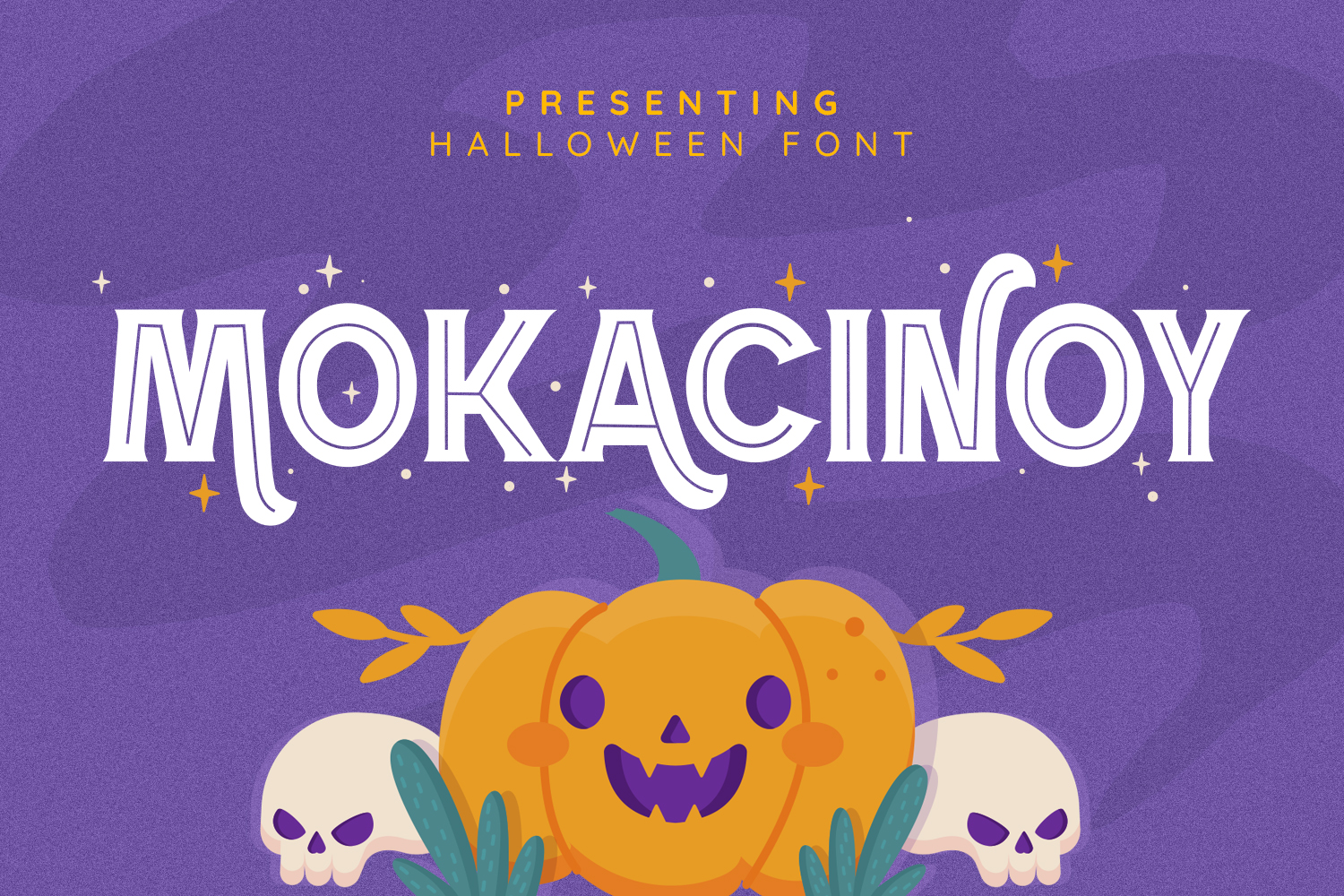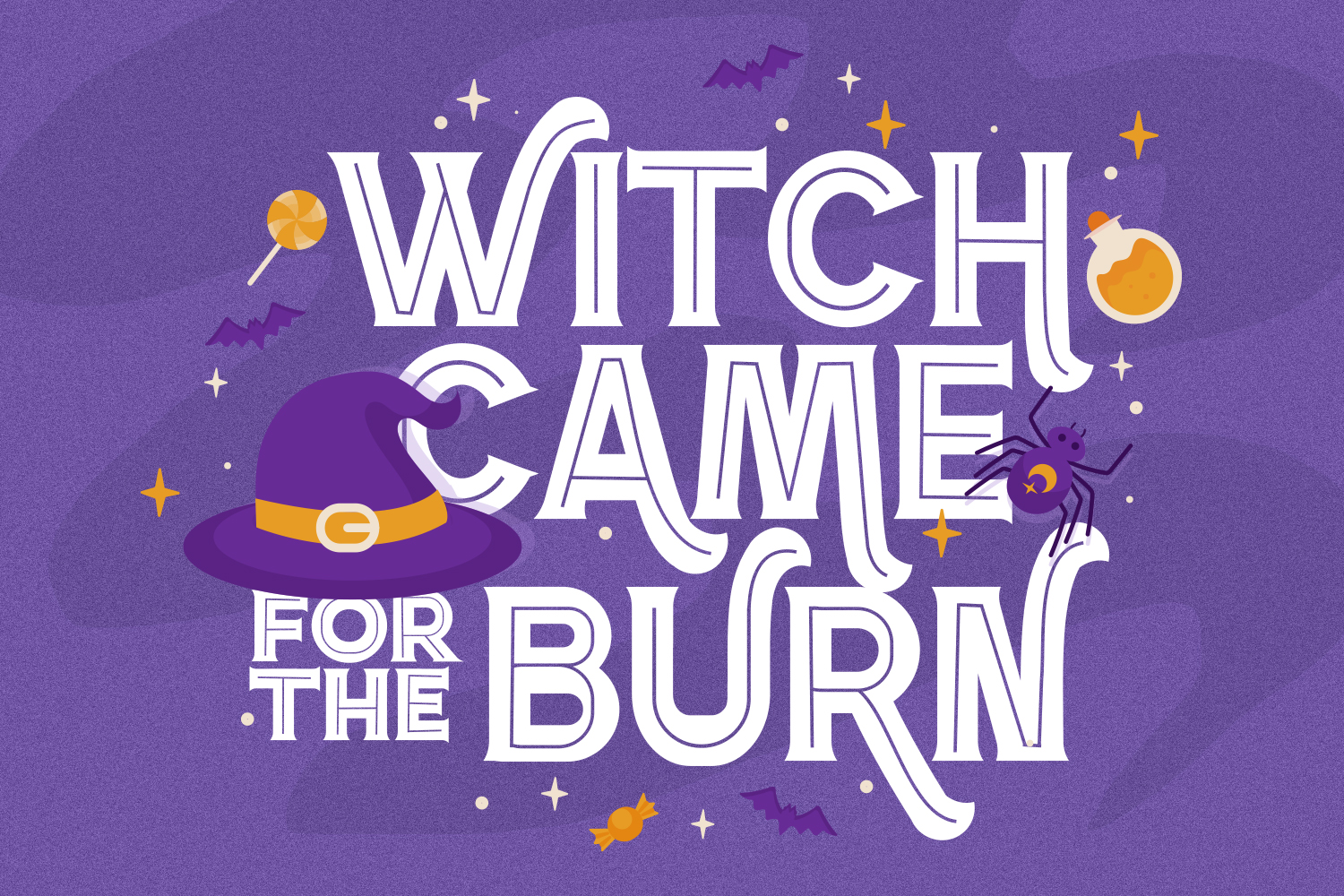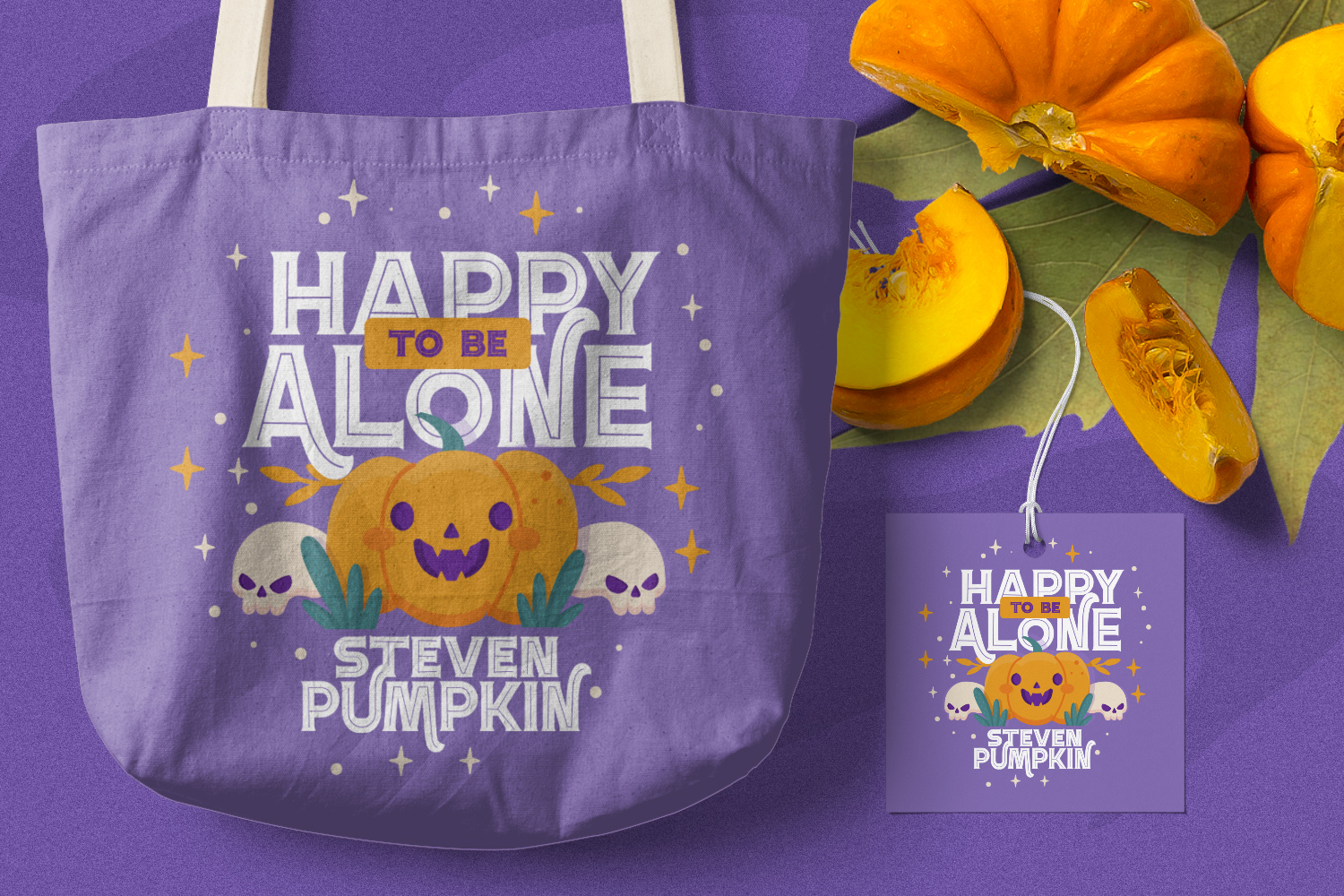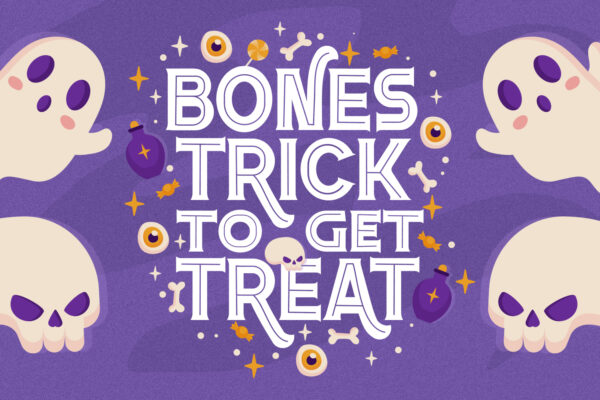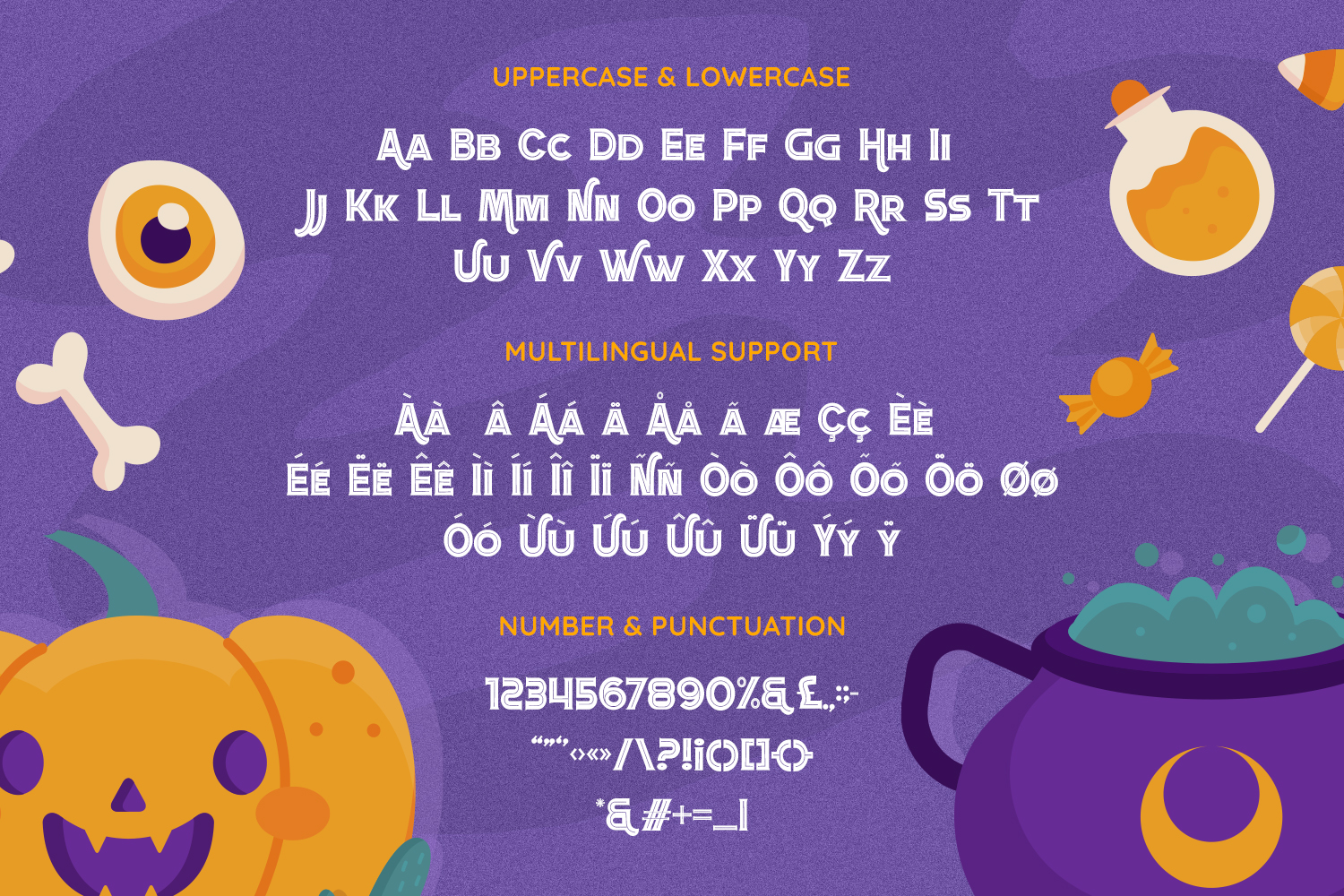
Mokacinoy is a fun and spooky Halloween display font that blends playful serif elegance with quirky Halloween flair. Its bold shapes, stylish vertical shadows, and swirly alternate characters make it perfect for party invitations, merchandise, children’s books, and seasonal branding. The cheerful personality of Mokacinoy brings just the right amount of fright and delight to your designs.
This font includes uppercase and lowercase letters, punctuation, numbers, and full multilingual support, ensuring versatility across all your Halloween-themed creative needs. Whether you’re crafting pumpkin packaging or magical quote art, Mokacinoy adds festive energy with a charming, decorative twist.